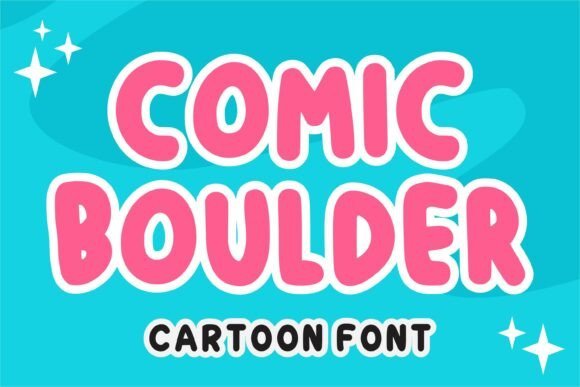
Unleash the Fun with Comic Boulder Font
Who hasn’t had that moment where they see a font and instantly know it’s the perfect fit for a project? Maybe it was a bold, playful font that made you think of a cartoon character or a fun children’s book. That’s exactly what happens when designers come across the Comic Boulder Font. This cheerful and energetic font is a game-changer for anyone looking to add a friendly, fun, and bold cartoon appearance to their designs.
The Comic Boulder Font is a versatile tool that can be used for a wide range of creative projects, from kids’ designs and comic titles to logos, stickers, posters, and merchandise. Its chunky, rounded letterforms and bubble style make it an ideal choice for designers who want to add a touch of whimsy and personality to their work.
With the Comic Boulder Font, designers can create eye-catching headlines, social media graphics, and branding that stand out from the crowd. Its value lies in its ability to evoke a sense of fun and playfulness, making it a valuable addition to any designer’s toolkit.
Comic Boulder Font Features
- Font Family: Comic Boulder is a sans-serif font family, designed to resemble a comic book style.
- Unique Characteristics: Comic Boulder features a bold, comic book-inspired design with thick lines and rounded edges, making it ideal for headlines, titles, and illustrations.
Comic Boulder Font Review
Overall, I think the Comic Boulder Font is a fun and quirky addition to any design project. ✨ It’s perfect for creating a playful, casual atmosphere, especially in applications like children’s books, entertainment, or lifestyle magazines. The font’s bold and chunky design elements make it stand out and grab the reader’s attention.
Some of the things that work well with this font include:
- Its unique, hand-drawn feel which gives it a lot of character and personality
- Its versatility in both digital and print formats
- Its ability to add a touch of whimsy to even the most mundane text
- It may be too loud or overpowering for more serious or formal content
- It can be difficult to read in certain font sizes or resolutions
- It may not be suitable for applications where a more traditional or elegant look is desired
Overall, I would recommend the Comic Boulder Font for designers who want to add a bit of fun and personality to their projects. Just be sure to use it thoughtfully and in contexts where it will be effective.
Comic Boulder Font is perfect for:
- Comic book-inspired designs
- Cartoon-style illustrations
Remember to use Comic Boulder Font in moderation to avoid overwhelming your design.